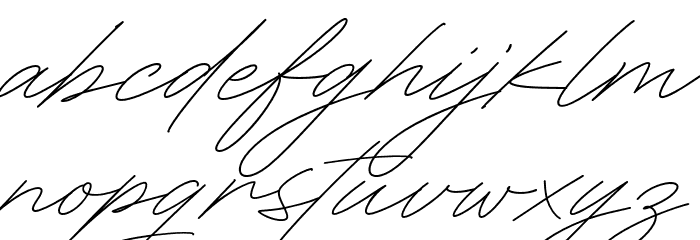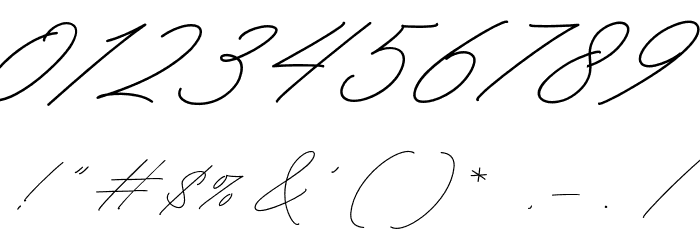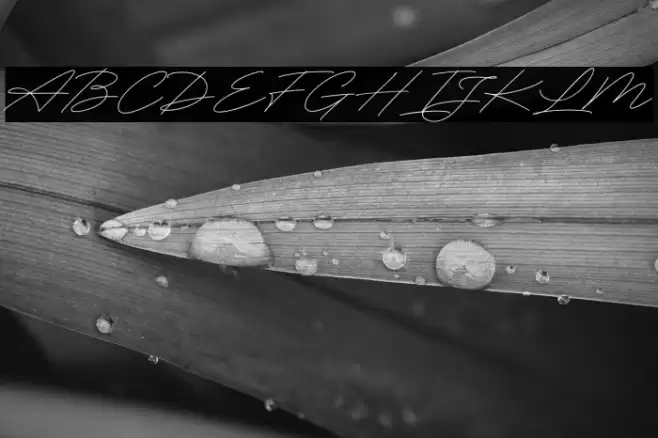
RighthandSignature Font
This font exudes elegance and fluidity, characterized by its cursive, handwritten style. The letters are connected, creating a seamless flow that mimics natural handwriting. The strokes are thin and delicate, with a slight slant to the right, enhancing its graceful appearance. The uppercase letters are slightly larger and more ornate, while the lowercase letters maintain a consistent, flowing form. Numbers and special characters are designed to match the overall aesthetic, ensuring a cohesive look across all elements. This font is perfect for projects that require a personal, sophisticated touch.
A cursive, handwritten font with elegant, flowing strokes.
- Proposed Projects: Ideal for wedding invitations, personal branding, greeting cards, and elegant stationery.
- Character Spacing: Tight
- Overall Style: Elegant, Personal
- Use Case: Logos, Invitations, Personal notes